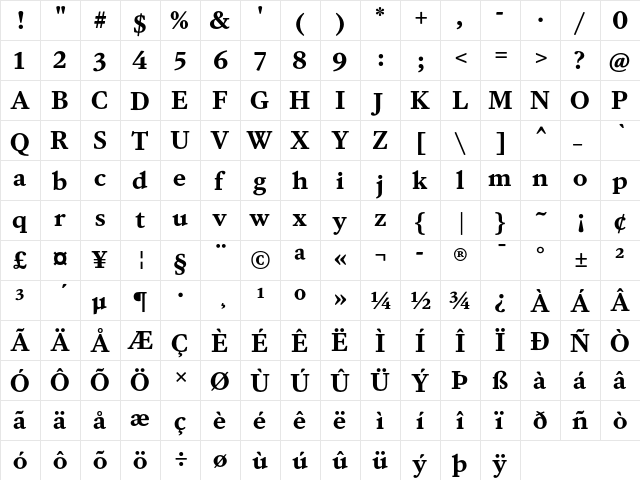
DB Serif Bold
Design Context for DB Serif Typeface
DB Serif brings classic typographic sensibility to the table — its serifs and measured letterforms reflect centuries of print heritage. Its bold stroke weight gives it real presence on the page.
Pro Tip: Use DB Serif for editorial body copy and considered headline work. Pair with a neutral sans for UI elements or captions to create a classic hierarchy.